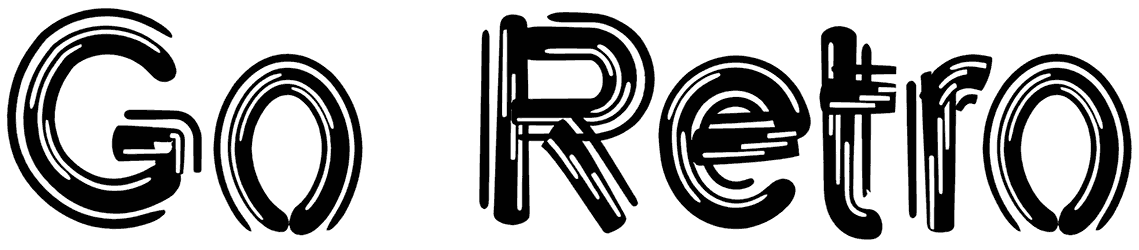
Go Retro Font
The first time that the audience takes a look at your artwork including illustrations, invitations, business cards, or web pages that are designed with the help of Go Retro, they will fall in love with its soft texture and distinct style, so we strongly offer you to pick up this timeless 90s font for your projects.
In addition to the aforementioned information, it can lead to a sense of dynamic, freshness, playfulness, or smudgy.